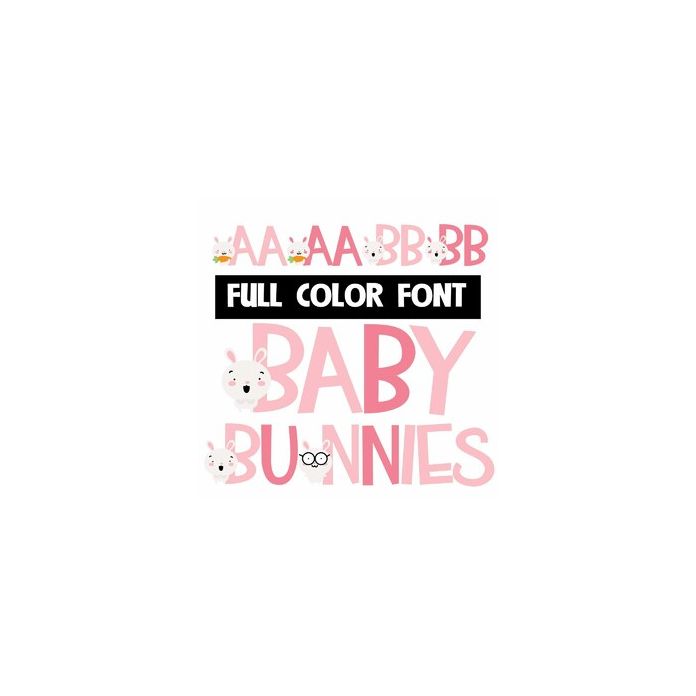
This full-color font features baby bunnies on the uppercase of each letter and a lowercase without bunnies. You can access another version of the letters by using the alt characters in Silhouette's glyph map.